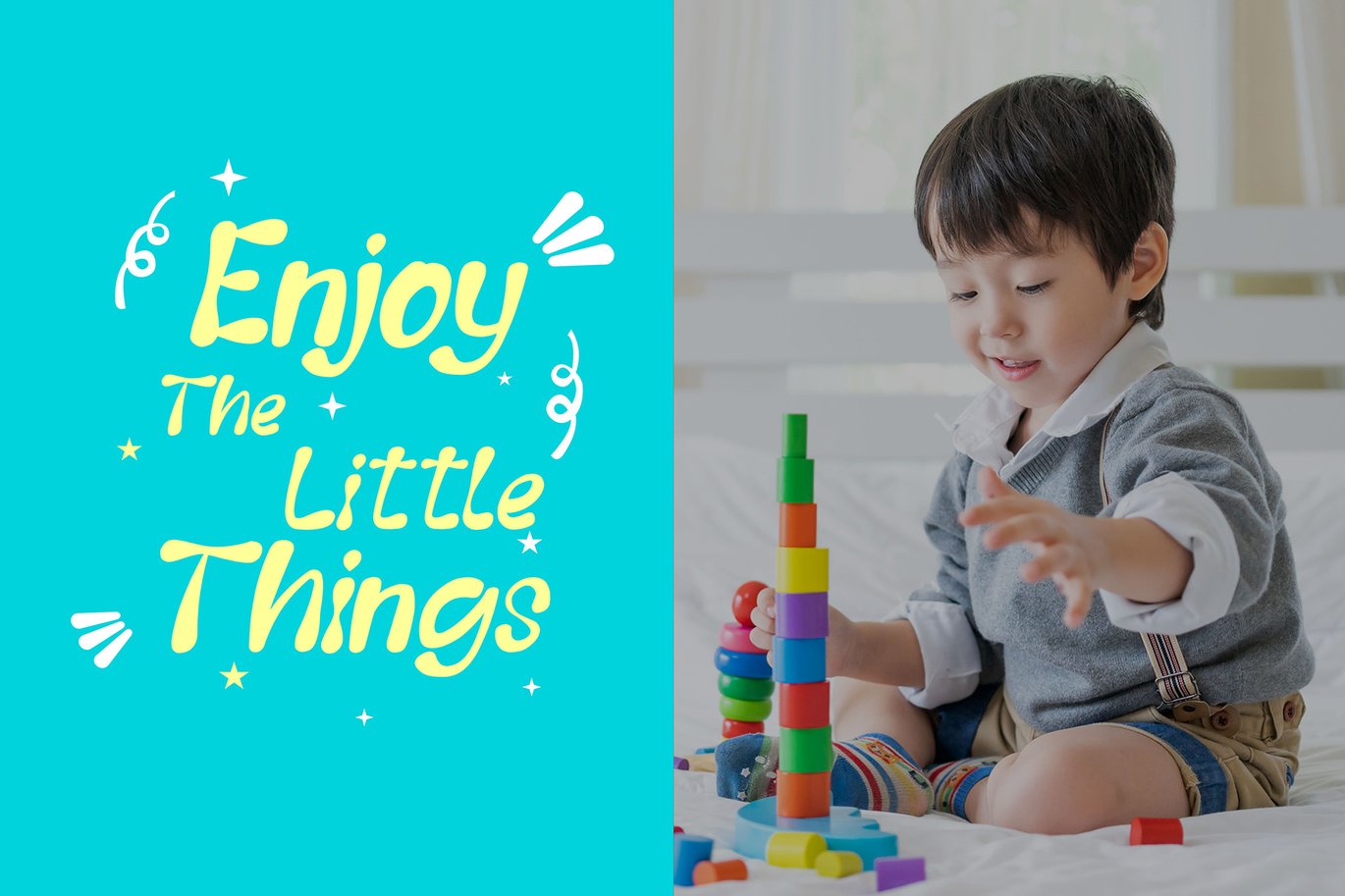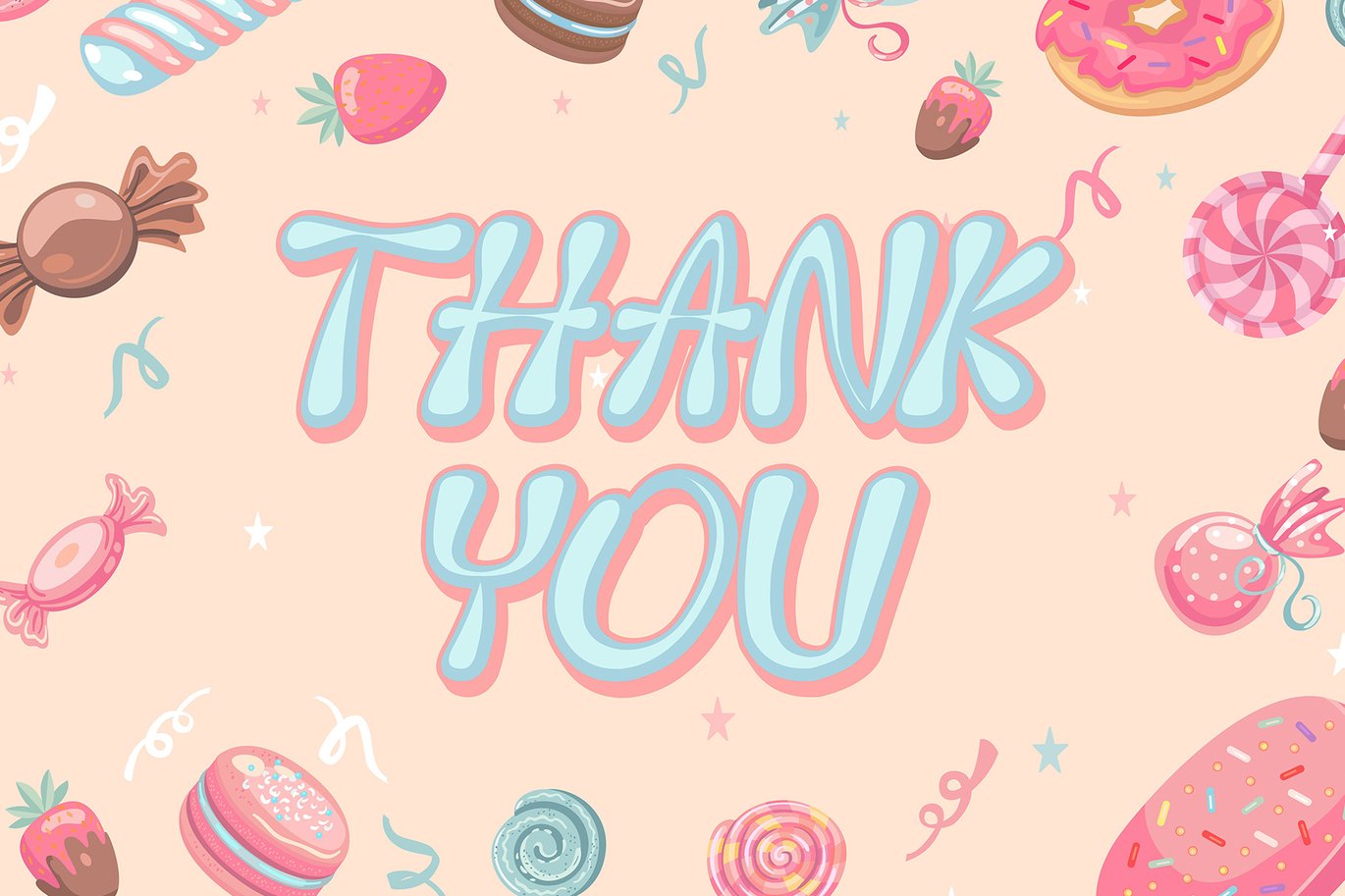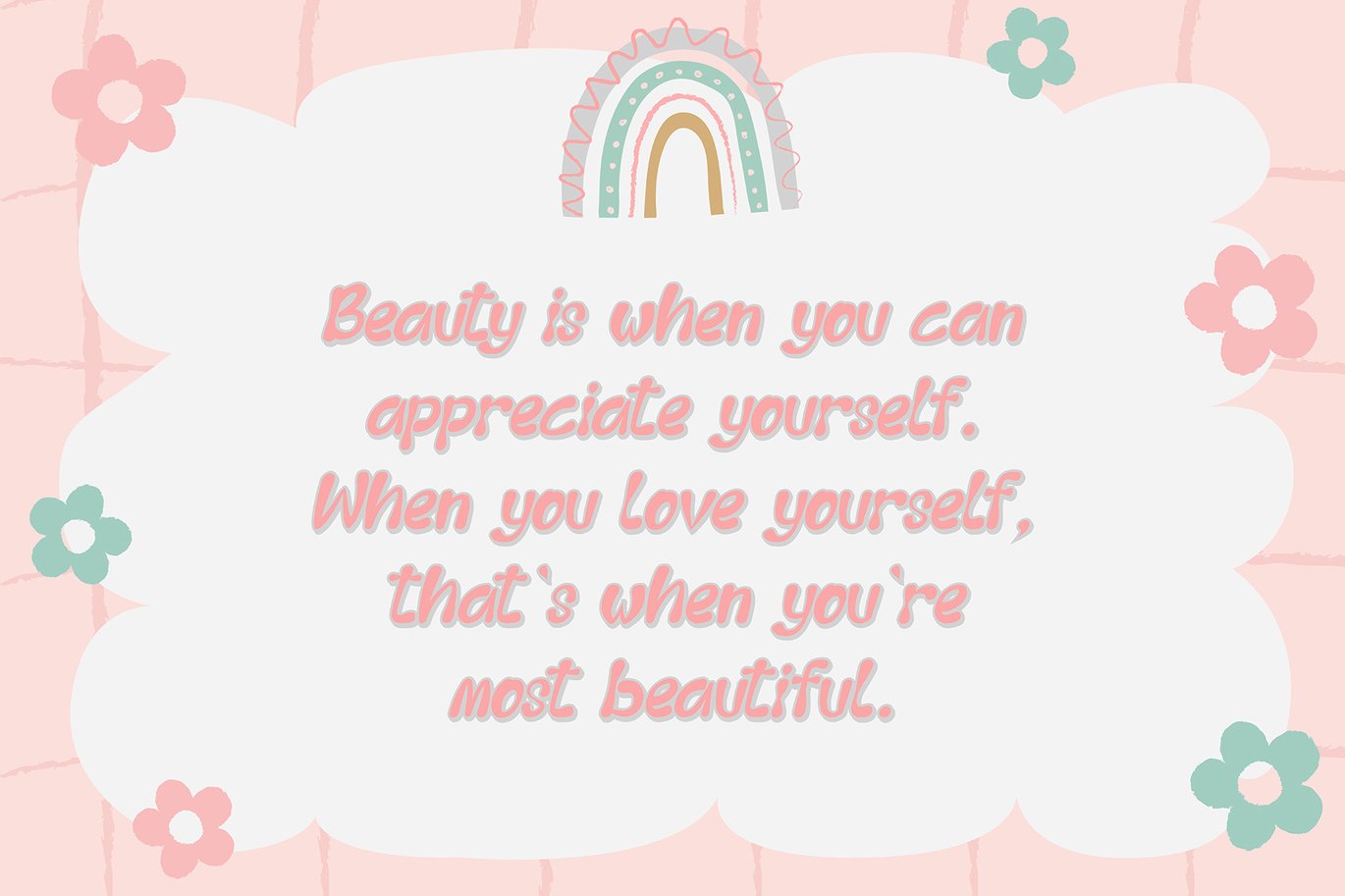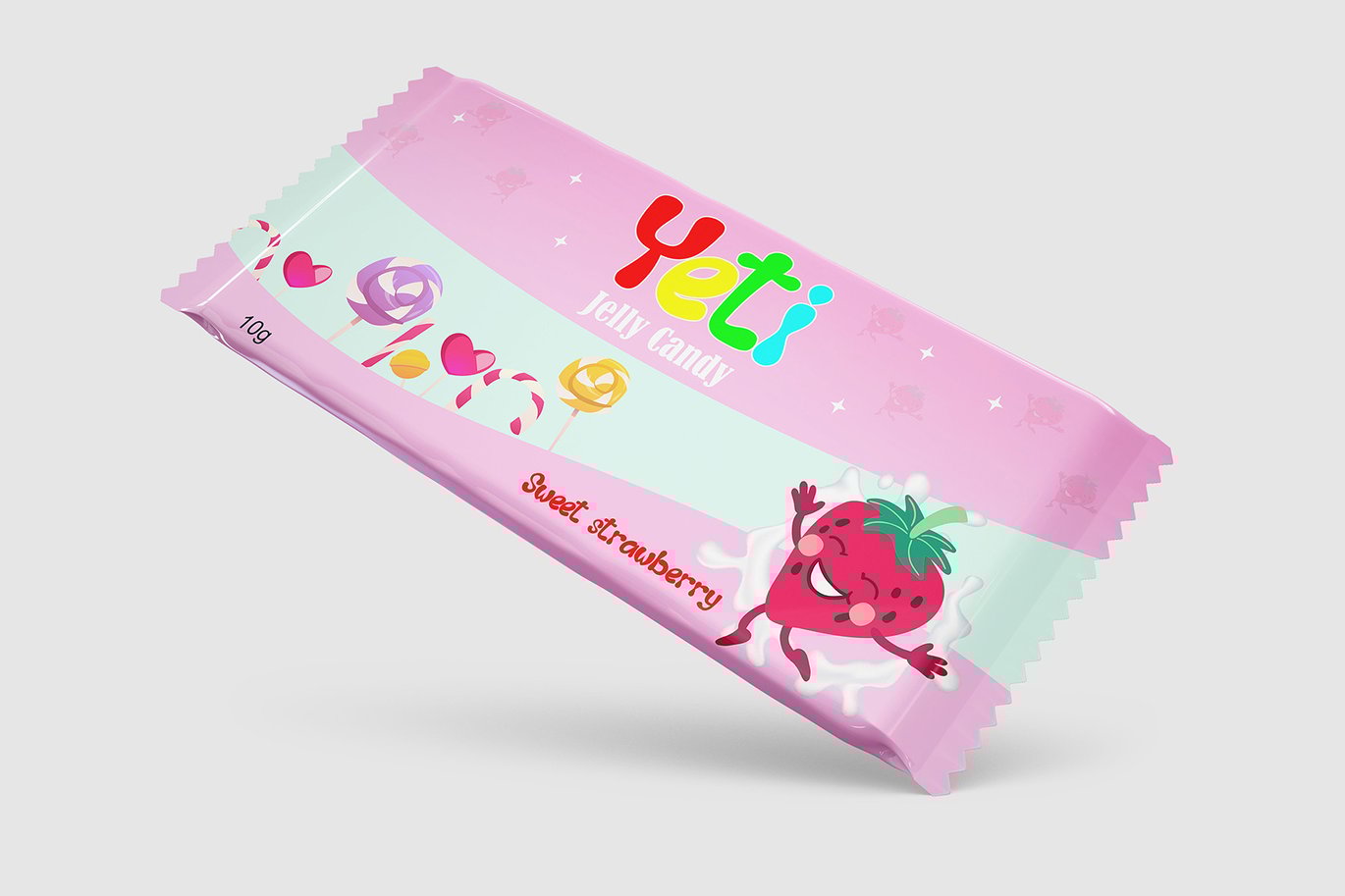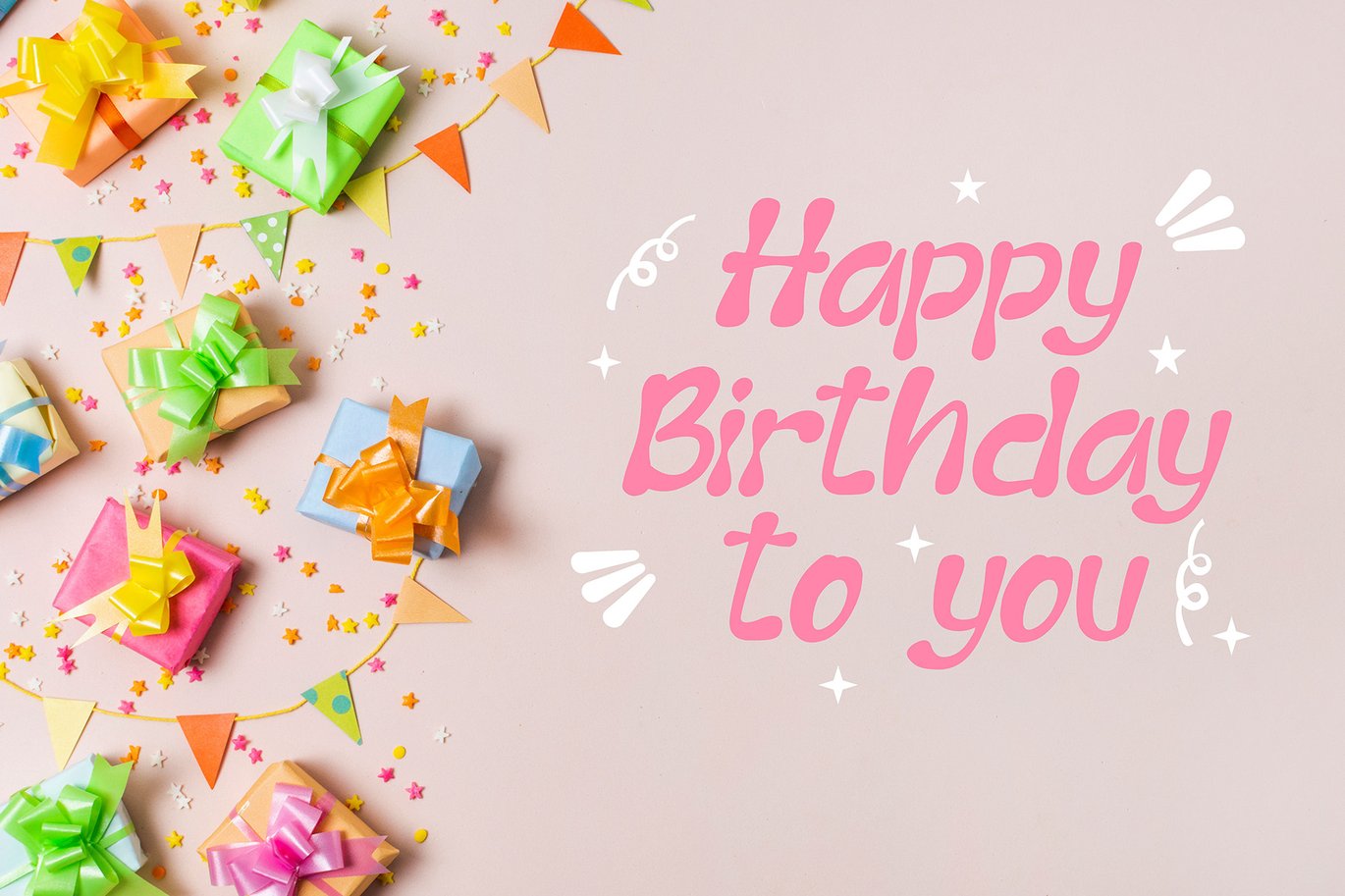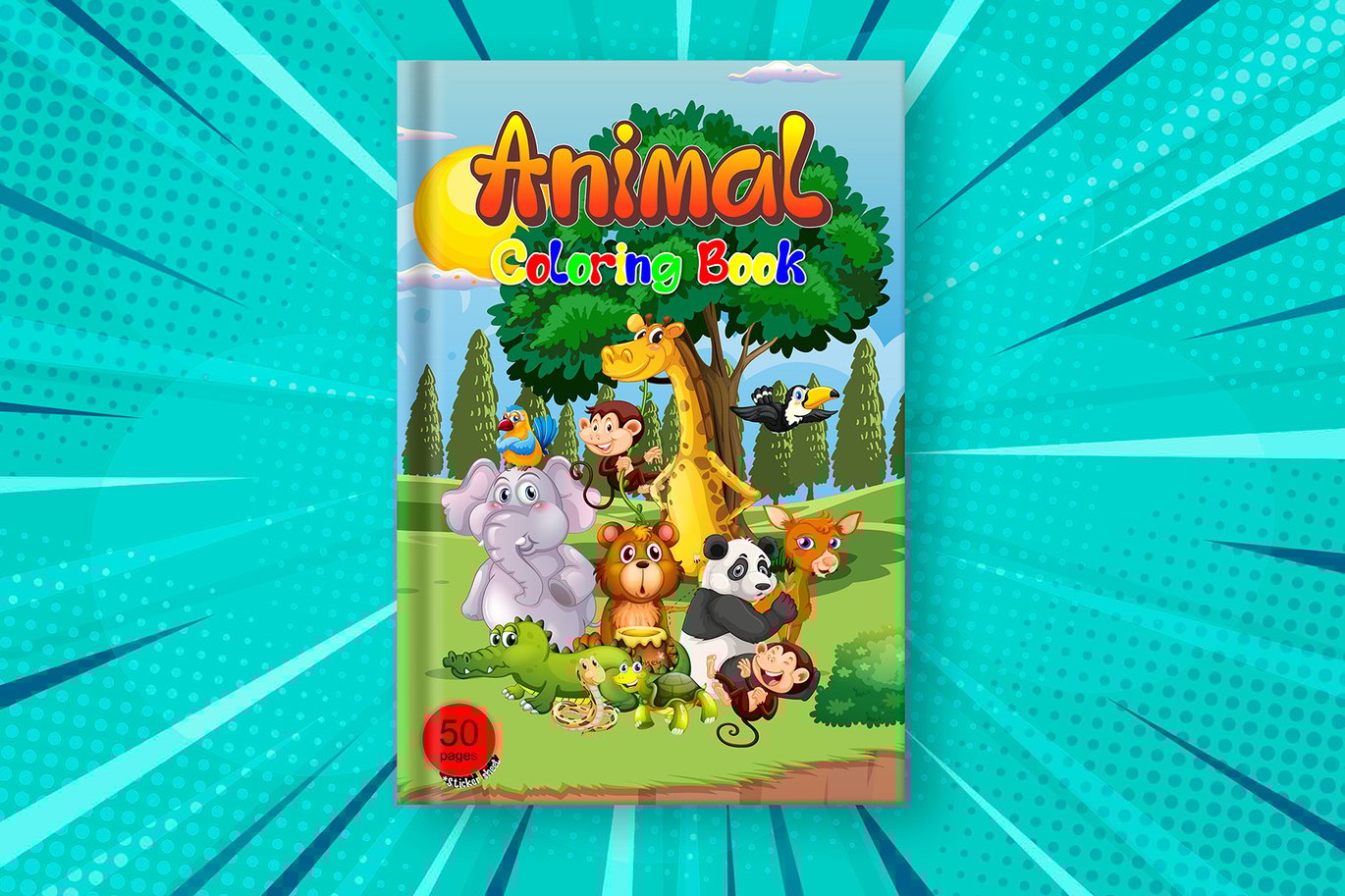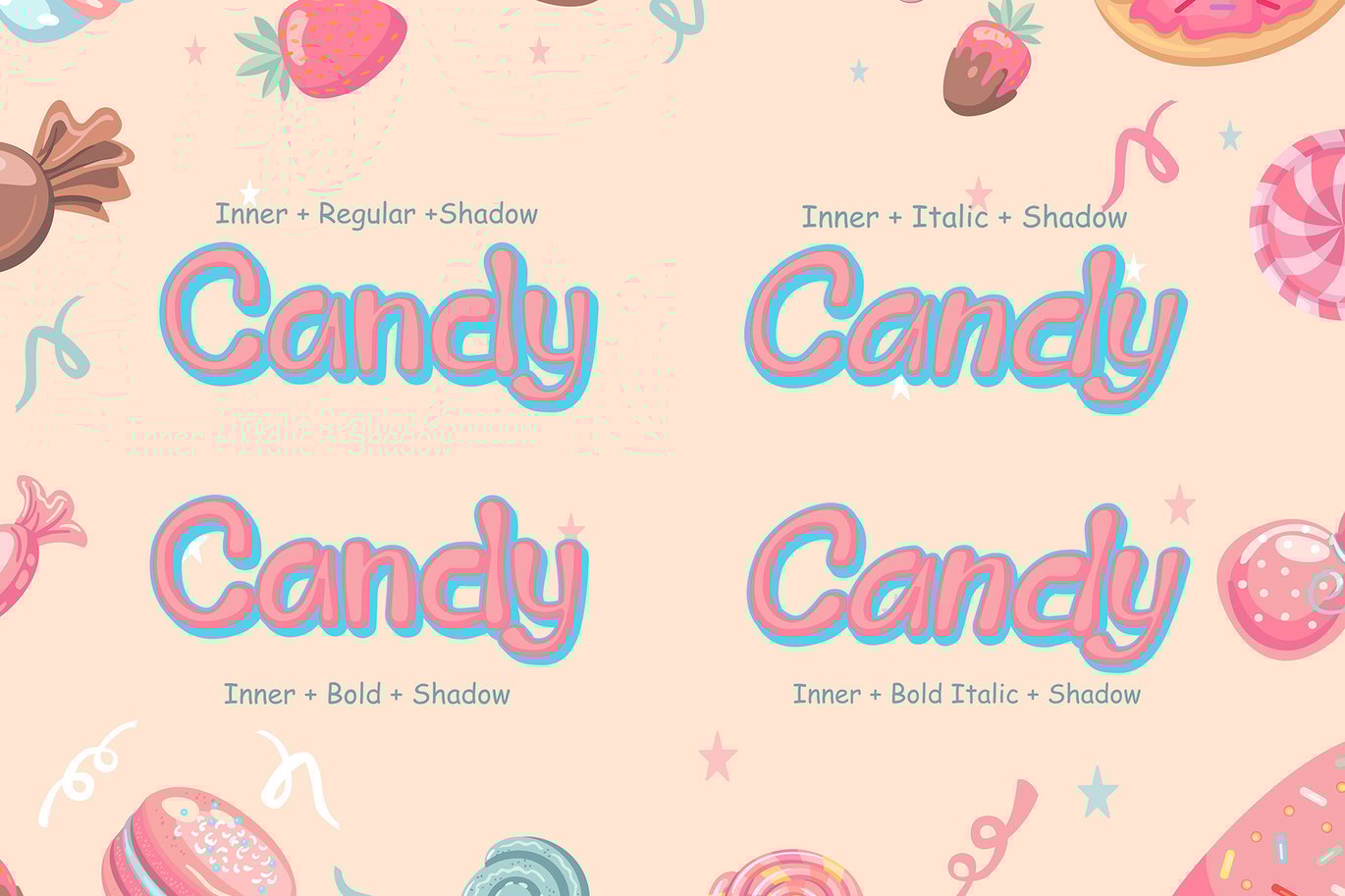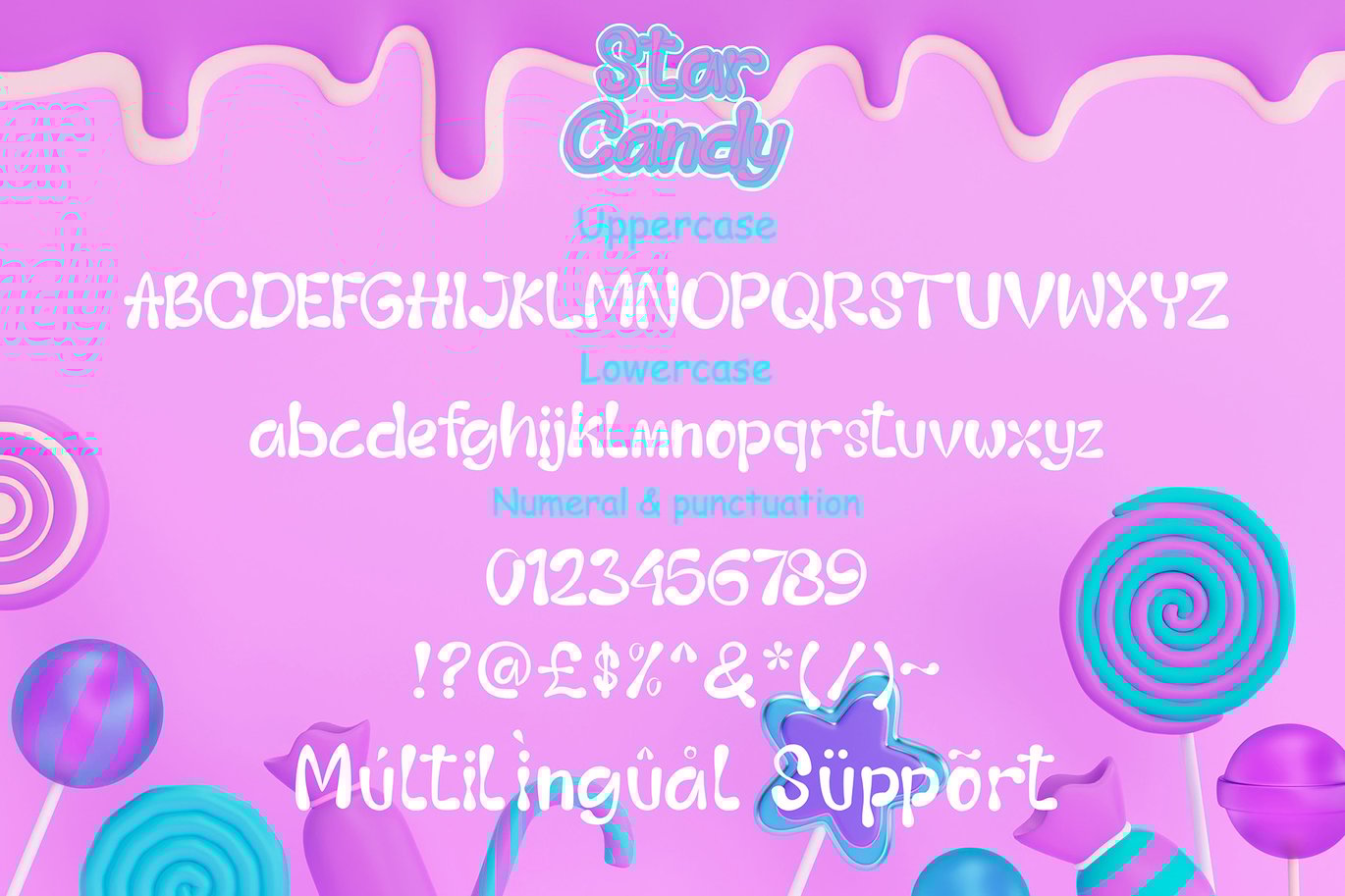
Star Candy – Playful Layered Display Font
Star Candy is a delightful and playful layered display font that adds a touch of whimsy to your design projects. With its charming, multi-dimensional lettering, Star Candy brings a sense of fun and vibrancy to any creative endeavor. Whether you’re crafting eye-catching posters, playful invitations, or imaginative branding materials, this font is sure to sweeten your designs with its unique layers and playful personality. Embrace the magic of Star Candy to make your text stand out and capture attention with its sugary-sweet aesthetics.